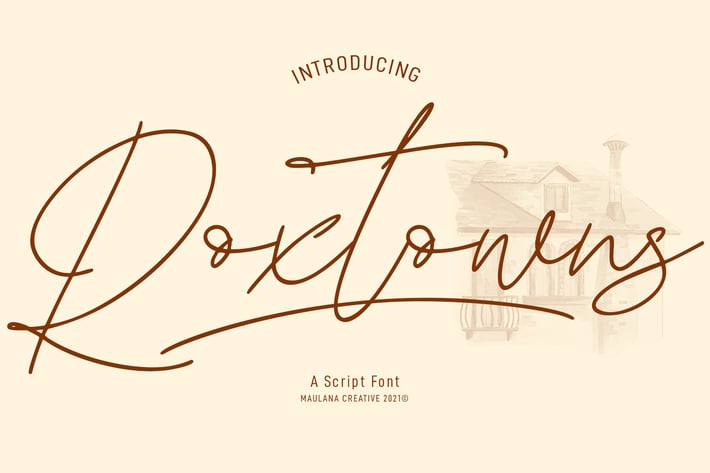
Roxtowns Script Font
Roxtowns is a fancy script font. With mono-line stroke, slanted and Unique Upper and lower characters with rich of ligatures. To give you an extra creative work. Roxtowns font support multilingual more than 100+ language. This font is good for logo design, Social media, Movie Titles, Books Titles, a short text even a long text letter and good for your secondary text font with sans or serif. Make a stunning work with Roxtowns font.